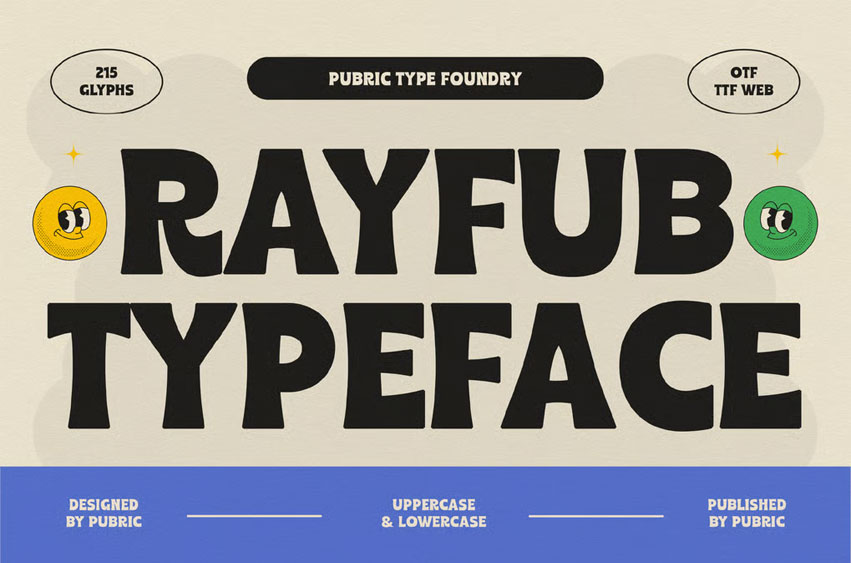
Rayfub Typeface Font
Rayfub Typeface Font is a bold retro display font featuring quirky letterforms and a cheerful personality.
Its distinctive shapes create a friendly, inviting vibe—ideal for headlines, posters, branding, and bold, expressive designs.
Ideal for headlines, logos, editorials, packaging, quotes, films, games, album covers, books, and promotional materials. This font ensures your design stands out in any setting.